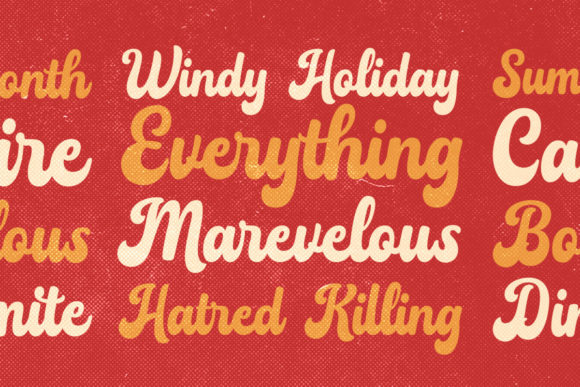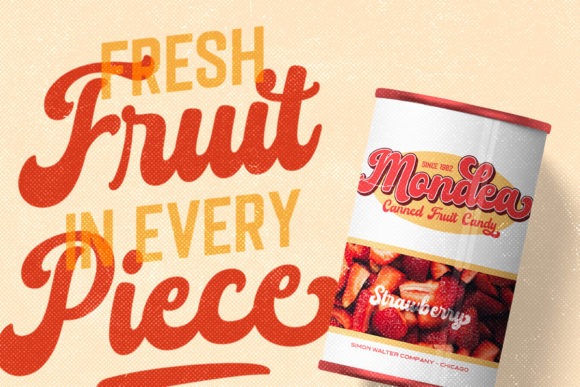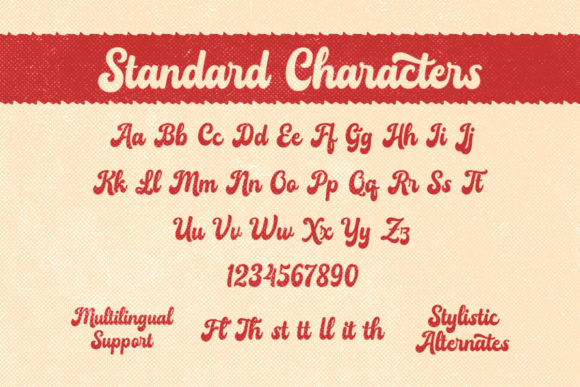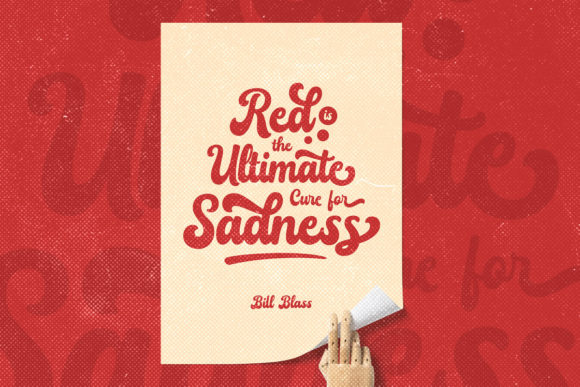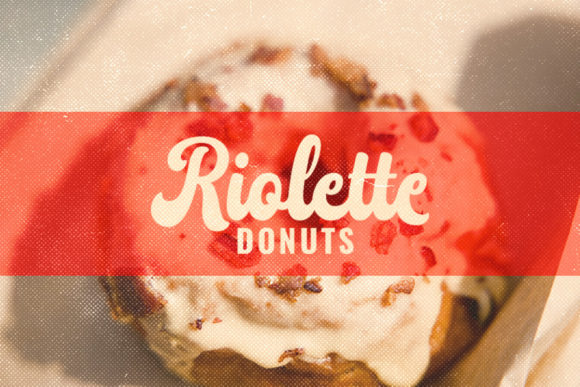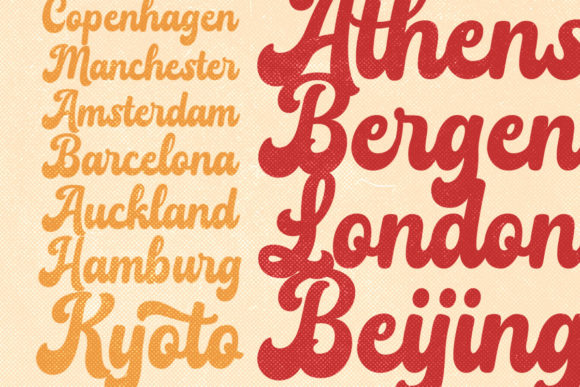
Introducing Billanta Font: Add a Retro Touch to Your Designs
Are you looking for a font that can add a touch of nostalgia and sophistication to your designs? Look no further than Billanta Font. This gorgeous and bold handwritten font is crafted to give your headlines and logotype projects a retro touch that’s sure to turn heads. In this article, we’ll take a closer look at Billanta Font, its features, and how you can use it to elevate your designs.
What is Billanta Font?
Billanta Font is a bold and beautiful handwritten font that’s perfect for designers and crafters looking to add a touch of elegance and sophistication to their work. With its strong, confident, and dynamic style, Billanta Font is ideal for creating stunning headlines, logotypes, and other design projects that require a retro flair.
Key Features of Billanta Font
- Retro Style: Billanta Font features a classic, retro style that’s reminiscent of the past. Its bold lines and dynamic curves make it perfect for creating eye-catching headlines and logotypes.
- Handwritten: This font is a beautiful example of handwritten typography, with each letter carefully crafted to create a unique and distinctive look.
- Bold and Confident: Billanta Font reads as strong, confident, and dynamic, making it perfect for designers who want to create a lasting impression.
- Nostalgic Character: With its retro style and handwritten feel, Billanta Font adds a touch of nostalgia to any design project.
How to Use Billanta Font in Your Designs
Billanta Font is a versatile font that can be used in a variety of design projects, from branding and advertising to packaging and web design. Here are a few ways you can use Billanta Font to elevate your designs:
- Headlines and Logotypes: Use Billanta Font to create stunning headlines and logotypes that grab attention and leave a lasting impression.
- Branding and Advertising: Add a touch of nostalgia and sophistication to your branding and advertising campaigns with Billanta Font.
- Packaging Design: Use Billanta Font to create eye-catching packaging designs that stand out on store shelves.
- Web Design: Add a touch of elegance and sophistication to your website with Billanta Font, perfect for headings, titles, and other design elements.
Tips for Getting the Most Out of Billanta Font
Here are a few tips for getting the most out of Billanta Font:
- Experiment with Colors: Billanta Font looks great in a variety of colors, so don’t be afraid to experiment and find the perfect hue for your design.
- Play with Sizes: Billanta Font can be used at a variety of sizes, from large headlines to smaller text elements.
- Combine with Other Fonts: Billanta Font pairs well with a variety of other fonts, so feel free to experiment and find the perfect combination for your design.
Billanta Font is a gorgeous and bold handwritten font that’s perfect for designers and crafters looking to add a touch of nostalgia and sophistication to their work. With its retro style, bold lines, and dynamic curves, Billanta Font is ideal for creating stunning headlines, logotypes, and other design projects. Whether you’re a seasoned designer or just starting out, Billanta Font is a great addition to your font library.